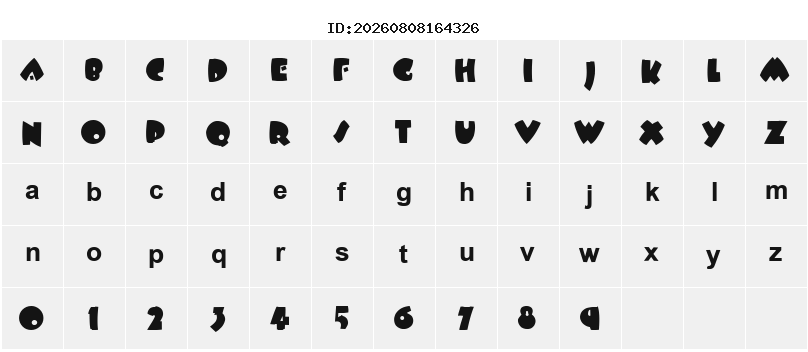
• Font Name: Plowboy
• Full Font Name: Plowboy Bold
• PostScript Name: BeesWax
Plowboy.ttf is a modern, elegant sans-serif font designed for ultimate readability and visual harmony. Perfect for branding, headlines, web design, and print materials.